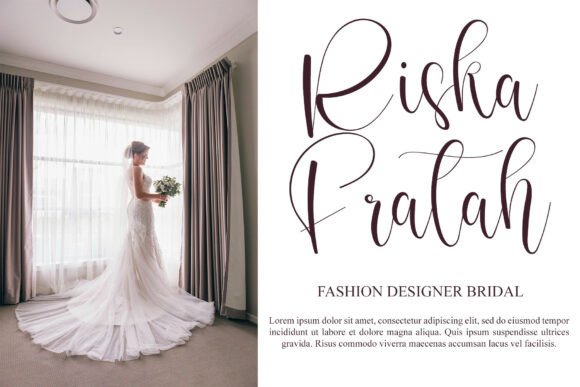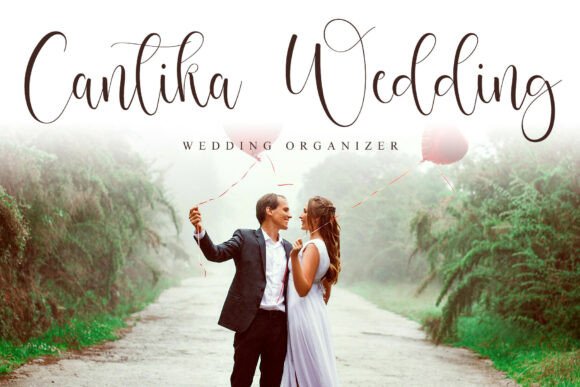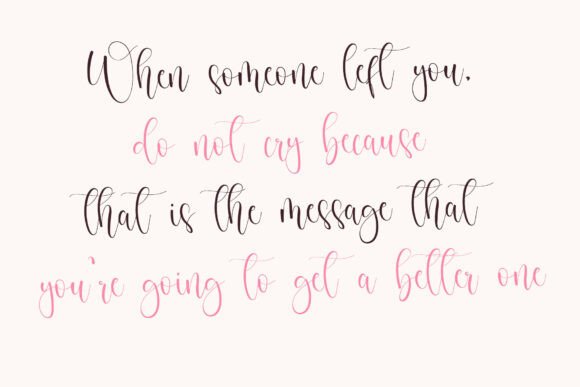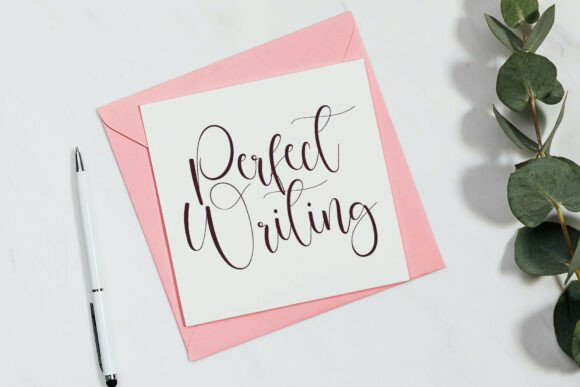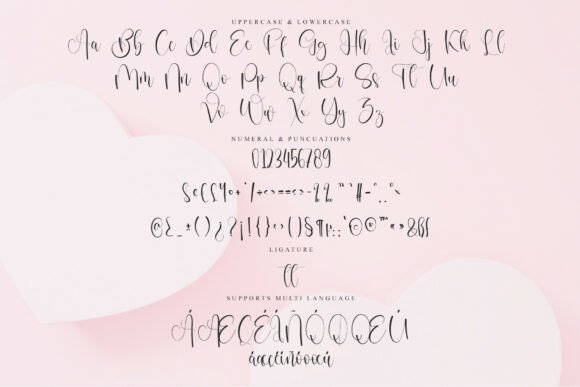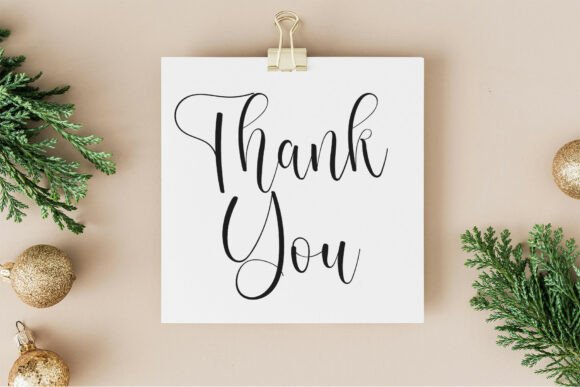
Unleashing Creativity: The Power of the Barbie Pinky Font
Have you ever stared at a blank page, pen in hand, waiting for inspiration to strike? For many designers, that moment of creative spark is what drives them to bring their visions to life. It’s a feeling of freedom, of possibility, and of unleashing one’s imagination onto the world.
For those who crave a font that embodies confidence and sophistication, the Barbie Pinky Font is a game-changer. This elegant script handwriting font combines fluid strokes with a commanding presence, making it perfect for projects that require a font that is both authoritative and stylish.
Whether you’re a seasoned designer or just starting out, the Barbie Pinky Font is a valuable addition to your toolkit. Its smooth curves and dynamic flow add a touch of personality and power to any design, making it a must-have for anyone looking to make a lasting impression.
Key Features of Barbie Pinky Font
- Unique Characteristics: The Barbie Pinky Font features a distinctive, playful design with a mix of cursive and sans-serif elements, making it perfect for creating eye-catching and whimsical designs.
- Font Style: This font is available in Regular style, providing a clean and legible appearance for various design applications.
- Character Count: The Barbie Pinky Font contains a wide range of characters, including uppercase and lowercase letters, numbers, and special characters, making it suitable for use in various languages.
Designer Review: Barbie Pinky Font
I’ve had the chance to play around with the Barbie Pinky Font, and I must say it’s a bit of a mixed bag. Let’s start with what works well ✨:
- The font’s playful and feminine vibe is perfect for brands targeting young girls or nostalgic adults.
- The varied font weights and styles offer a lot of flexibility for designers looking to create visually appealing graphics and text.
- The font’s rounded edges and smooth curves make it feel friendly and approachable.
However, there are some limitations ⚠️:
- The font may feel a bit too “cute” or over-the-top for some design applications, such as corporate or professional branding.
- The font’s consistency can be a bit inconsistent across different font weights and styles.
- The font may not be the best choice for designs that require a more serious or dramatic tone.
Overall, I think the Barbie Pinky Font is a fun and playful addition to any designer’s toolkit. While it may not be the best choice for every project, it’s perfect for designs that require a lighthearted and feminine touch.
The Barbie Pinky Font is perfect for:
- Designing feminine and playful graphics.
- Creating eye-catching social media posts.
- Adding a touch of whimsy to your brand’s visual identity.
Alternatives to Barbie Pinky Font
The Barbie Pinky Font is a playful and cursive font often used in feminine and children’s designs. However, for designers looking for alternatives, here are a few options:
Great Vibes Font is a modern and elegant script font perfect for creating a sophisticated and whimsical feel. It is ideal for use in wedding invitations, greeting cards, and other formal designs. Unlike the Barbie Pinky Font, Great Vibes has a more refined and subtle look, making it suitable for a wider range of audiences.
Pacifico Font is a beautiful and elegant script font inspired by the Pacific coast of Mexico. It is perfect for use in designs that require a sense of relaxation and serenity, such as travel brochures, spa menus, and beach-themed designs. While both fonts have a similar feel, Pacifico has a more laid-back and natural look, making it ideal for designs that require a sense of calm.